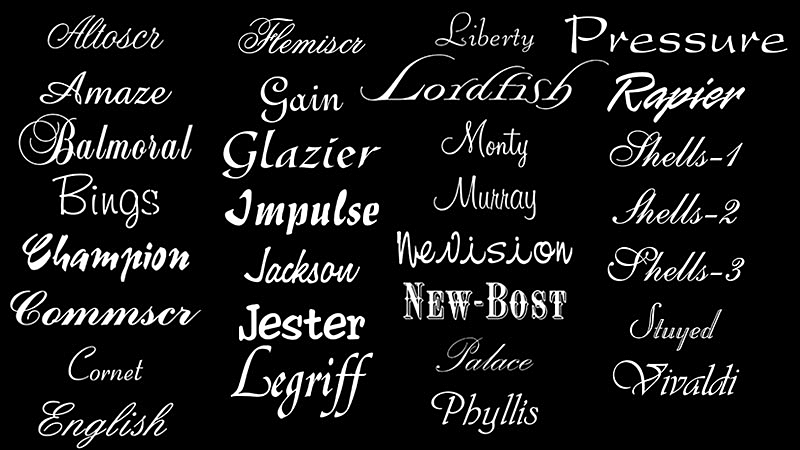
Cursive Fonts For Signs. Best cursive fonts — the woodlands font pin it. Cursive fonts mimic the style of human penmanship where the letters flow together.
There is no app (at least in our knowledge) with an inbuilt text formatting option to change the fonts to look like cursive fonts. The cursive handwriting style is functional and intended to be used for everyday writing. A free cursive font generator with cursive unicode letters for fancy cursive fonts.
Check out our list you might find an interesting handwritten font in word that youd want to use. Looking for cursive neon fonts? But the cursive text is not only one type, there are four types of cursive text available for now, and you need to know about it.
The Cursive Handwriting Style Is Functional And Intended To Be Used For Everyday Writing.
The font includes swirly endings, swashy loops, and tons of cute ornaments. As far as cursive fonts go, it’s pretty standard but it does feature beautiful flourishes at the beginning and end of words, extending the length of your compositions and creating a truly flowy look. The woodlands is one of the most exquisite and striking fonts in our list.
Free cattalonia signature font is a handmade font coming from stripline co. Cursive fonts are generally the script fonts with joining letters. Design your sign special offers.
Cursive Fonts Mimic The Style Of Human Penmanship Where The Letters Flow Together.
We have been using the cursive fonts for a long time and it continues to be one of the most widely used font types. Huge amount of choice in materials, fonts & images. Best cursive fonts — the woodlands font pin it.